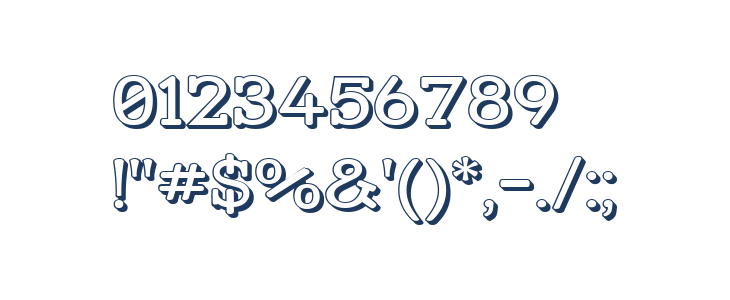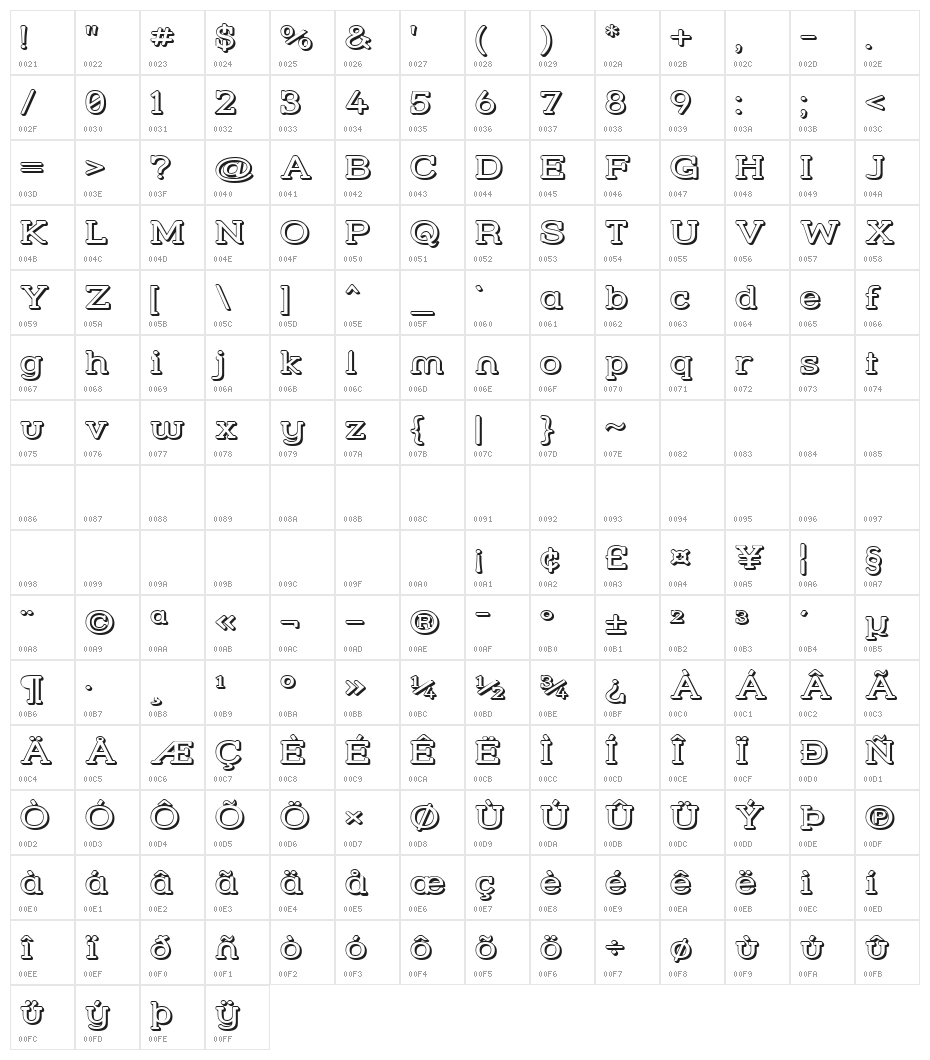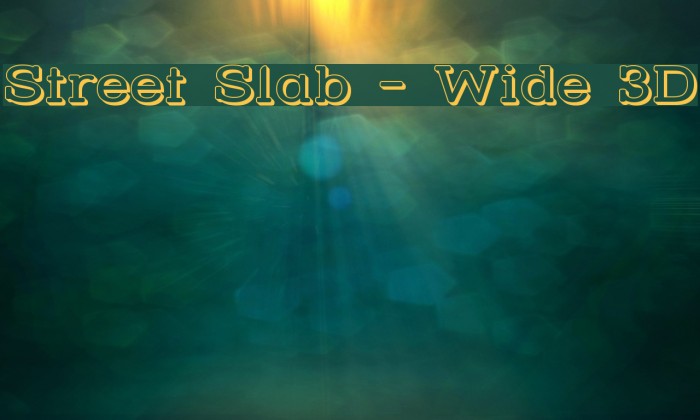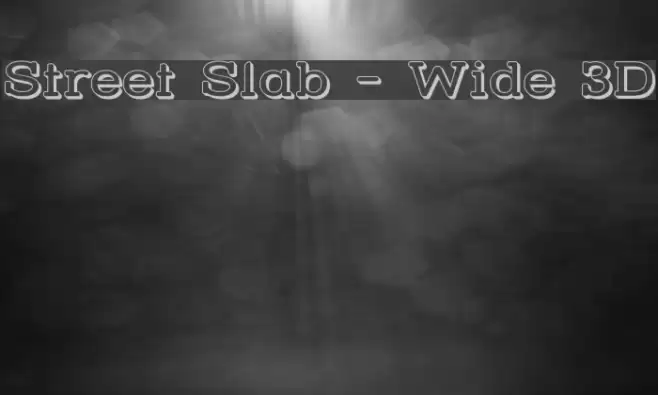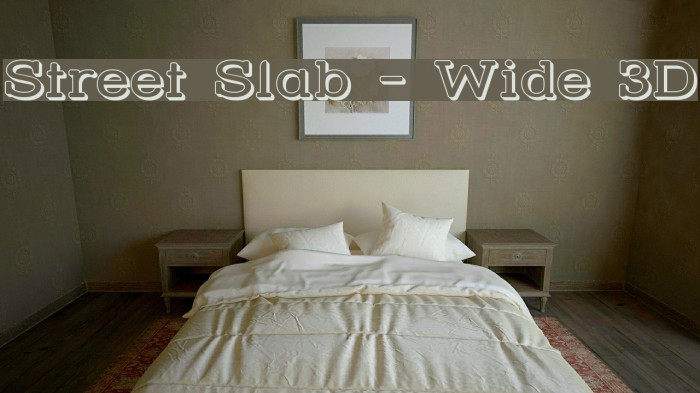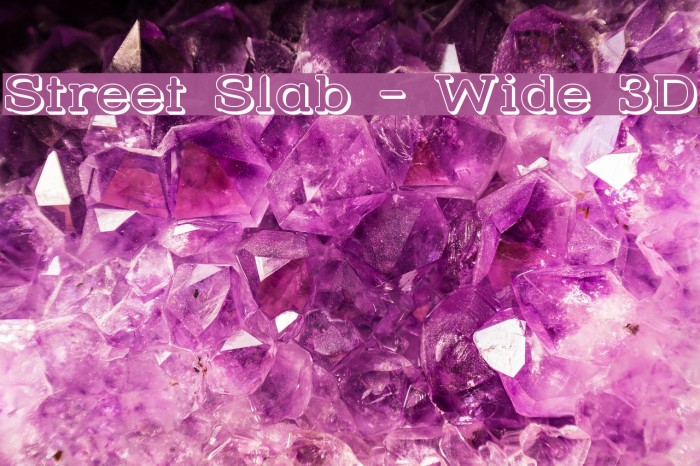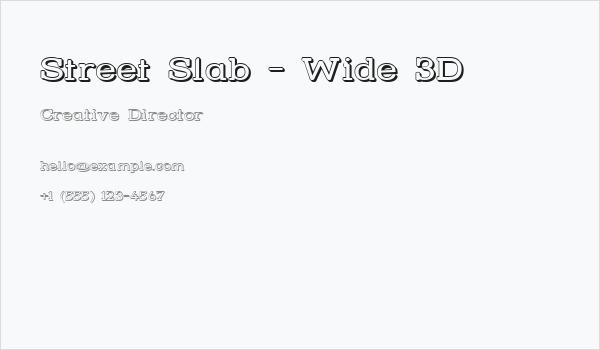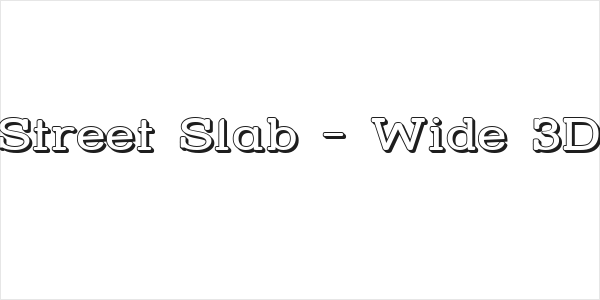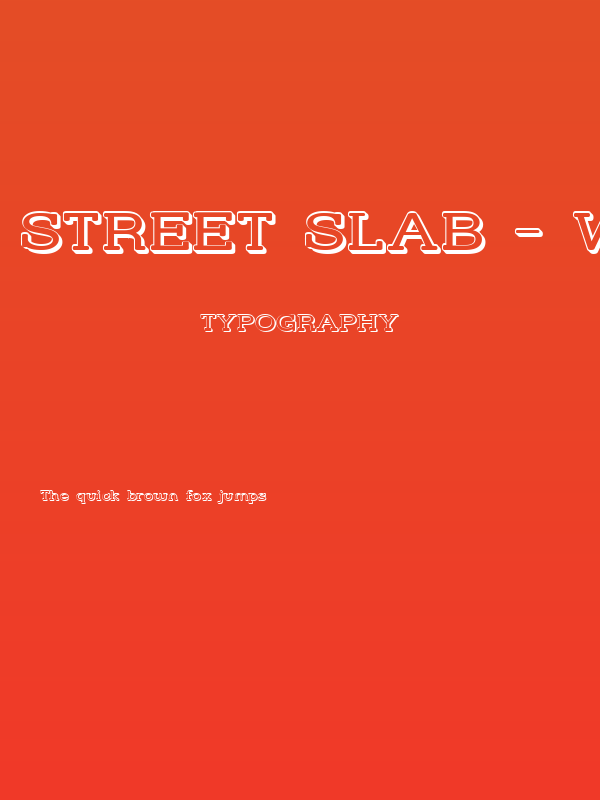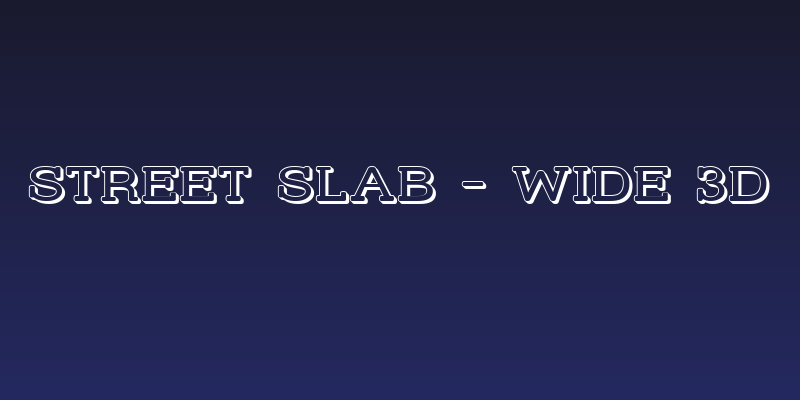
Street Slab - Wide 3D Font
Street Slab - Wide 3D Description
This font features a bold, three-dimensional slab serif style with wide characters. The uppercase and lowercase letters are designed with a strong, impactful presence, making them ideal for attention-grabbing headlines. The 3D effect is achieved through a shadowed outline that gives depth to each character. The numerals and special characters maintain the same bold and wide characteristics, ensuring consistency across all text elements. The overall design is modern and dynamic, suitable for projects that require a strong visual impact.
| Proposed Projects | Ideal for posters, signage, branding, and any project requiring a bold, impactful typeface. |